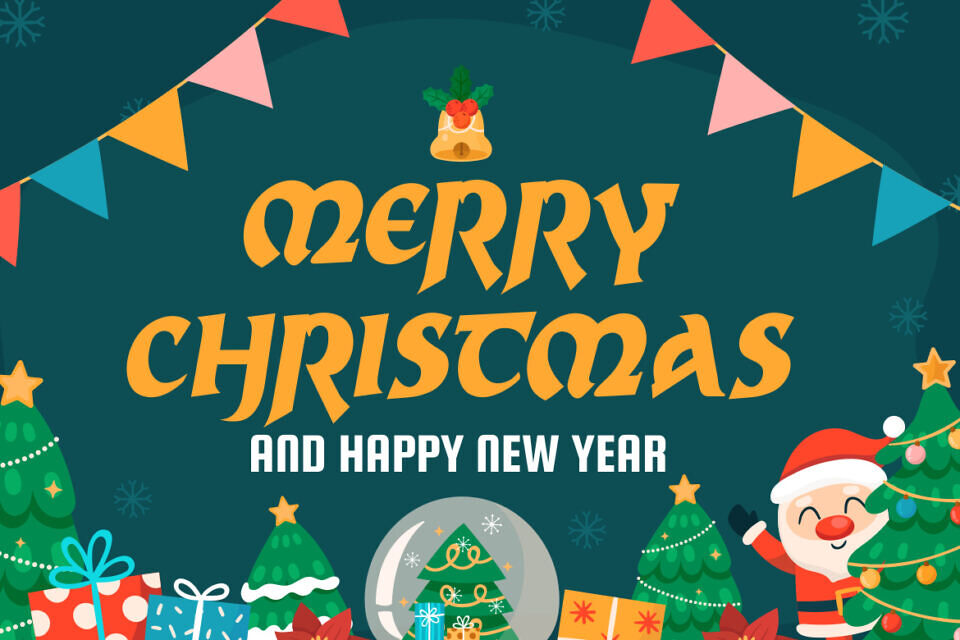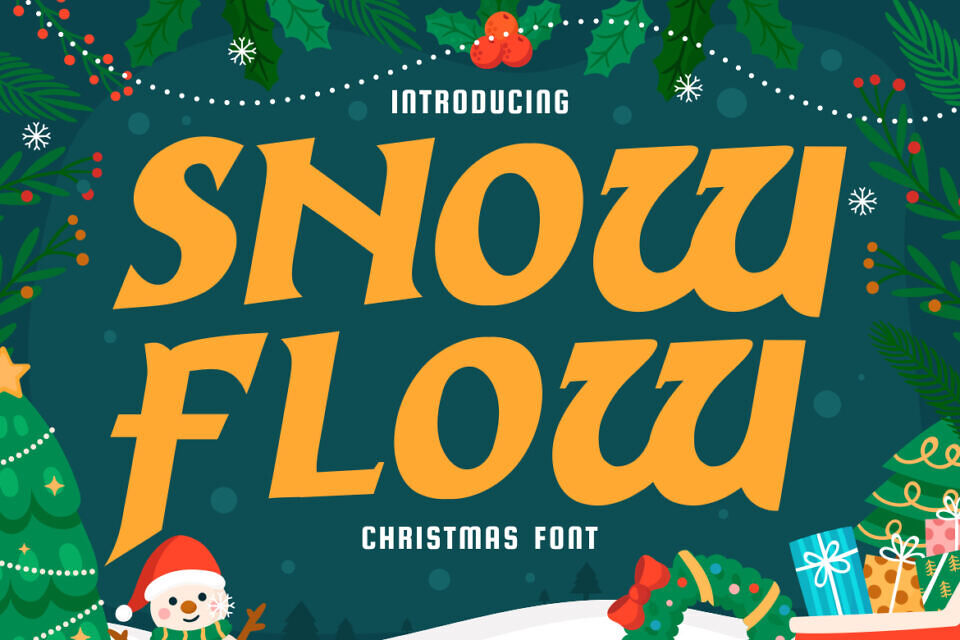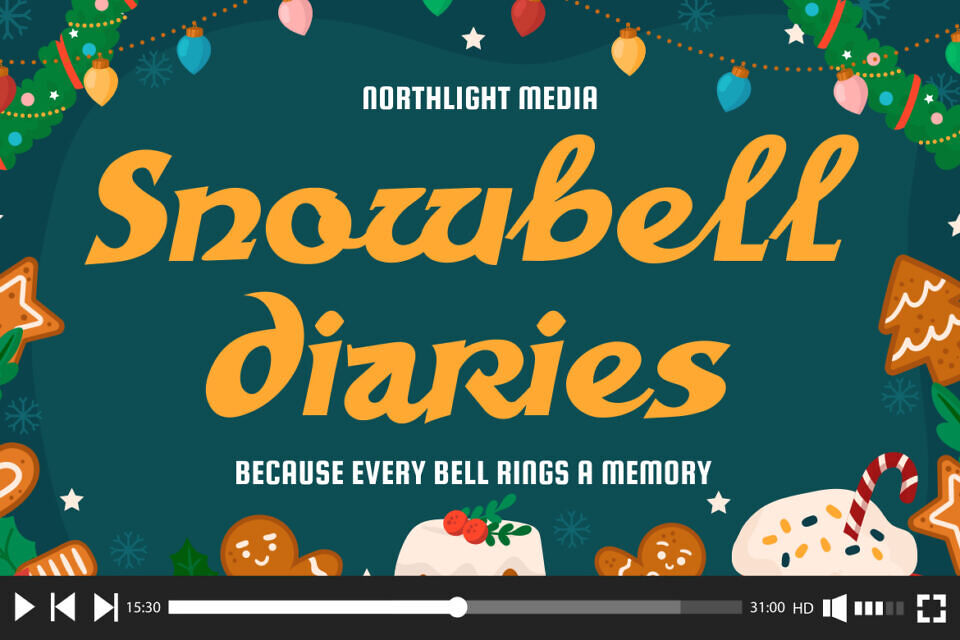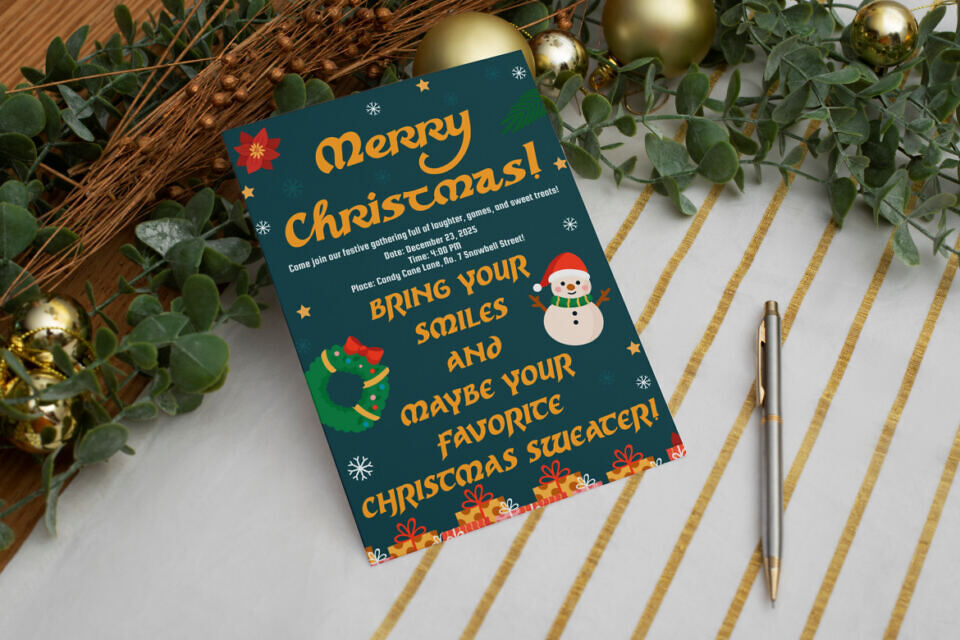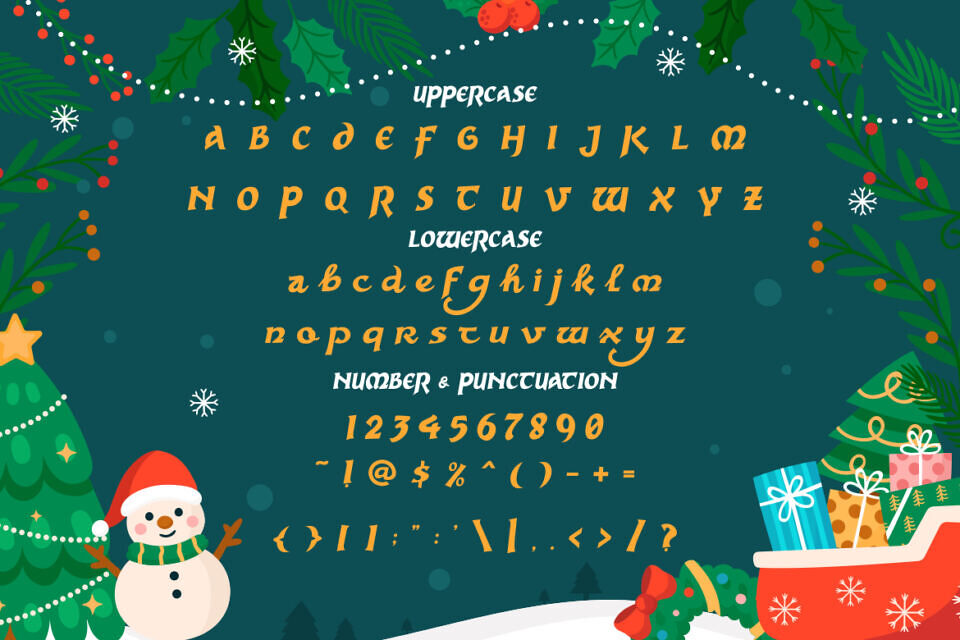
Snow Flow Font
This festive font combines bold lines, rounded ends, and flowing curves to evoke a cheerful winter feel. Its lively, easy-to-read characters blend playful energy with a friendly script style, making it perfect for holiday branding, greetings, and creative projects that require a warm atmosphere.
Snow Flow font works well for logo design, seasonal branding, posters, product packaging, book covers, stickers, event invitations, movie titles, social media ads, and other winter or Christmas projects. Its bold yet charming form helps headlines stand out while keeping a friendly tone.